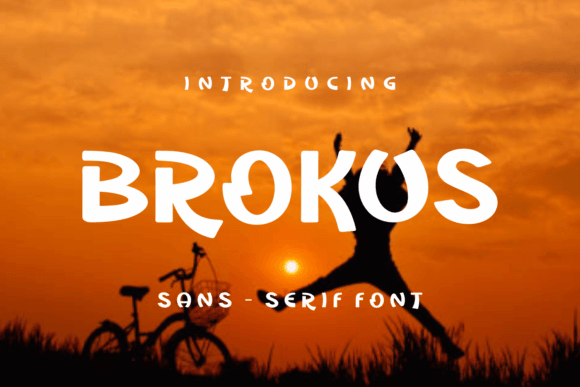
Introduction to Brokus Font
Brokus is a cool and unique sans serif display font.
Why Choose Brokus Font?
Brokus Font offers exceptional quality and versatility, making it a valuable addition to your design toolkit. Whether you’re creating for personal projects or commercial use, Brokus Font delivers professional results.